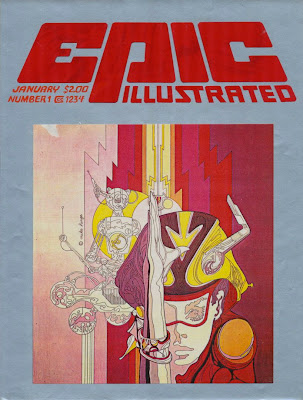
For this logo I managed to integrate both words plus the issue date and price. I combined an uppercase "E" with lowercase letters; they're the same x-height. I chose not to dot the "i". Two mock-ups used a large logo while the third mock-up had an understated logo because of the art. Colored paper was used for the logos, with the other information painted in gouache. I was satisfied how the logo turned out.
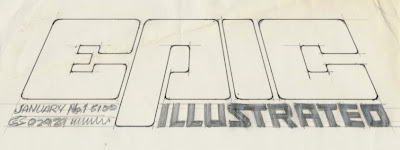
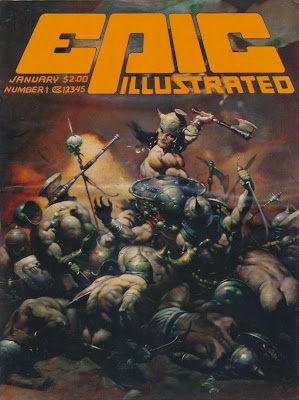
I think it was in mid-September when I delivered the logo designs to Jim Salicrup at Marvel. He disappeared with the material while I waited in the reception room. About ten minutes he reappeared and said, "Sorry."
Sometime later I heard or read that Archie Goodwin designed the logo. He was the editor of Epic Illustrated, so that's plausible. Maybe someone out there knows who did the logo. Years later I designed logos for Epic Comics.